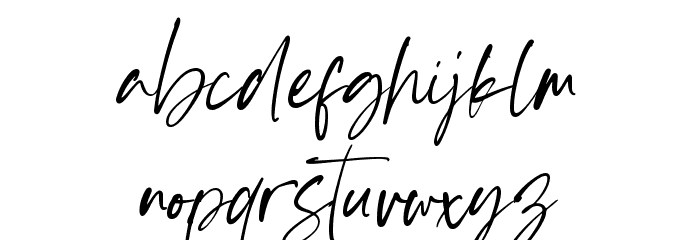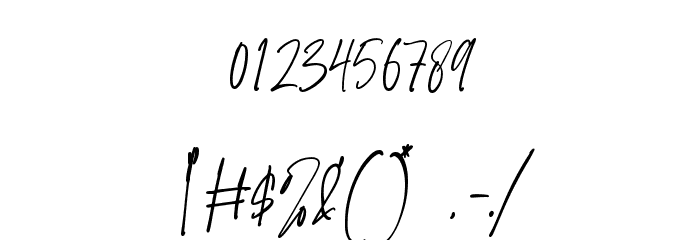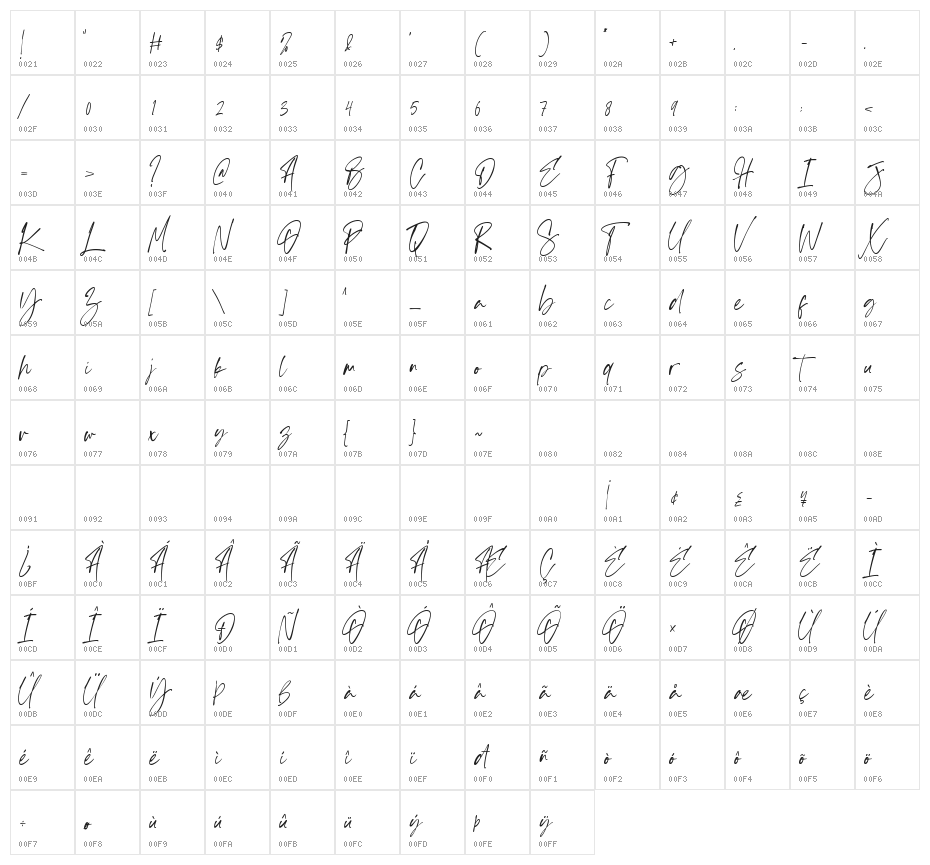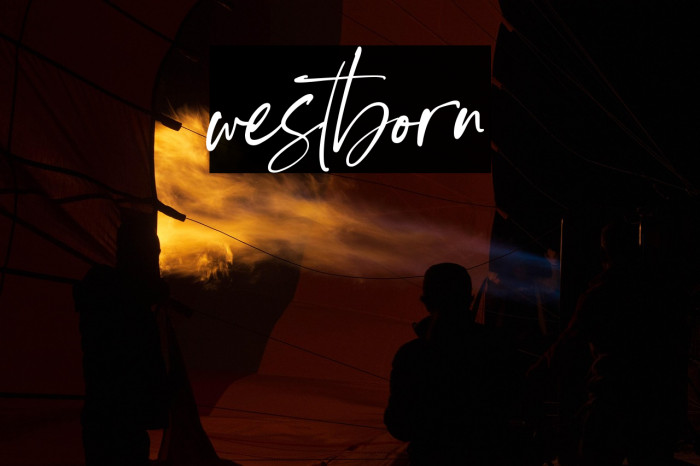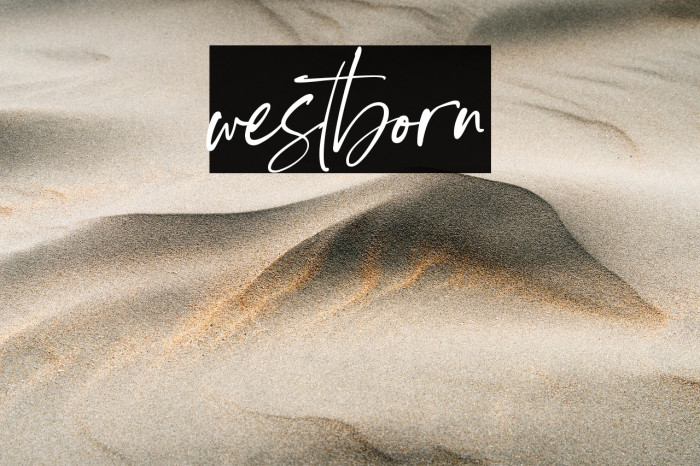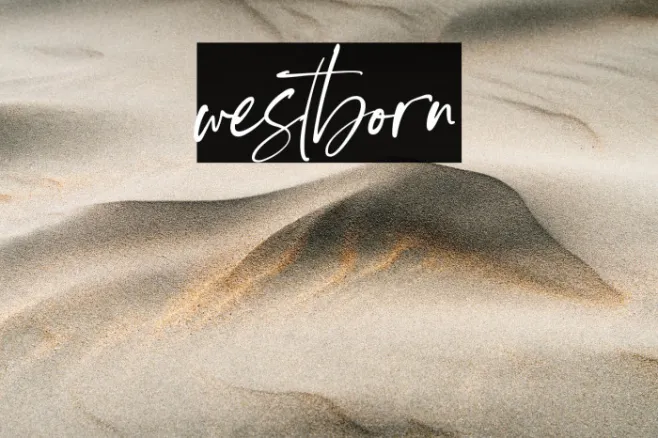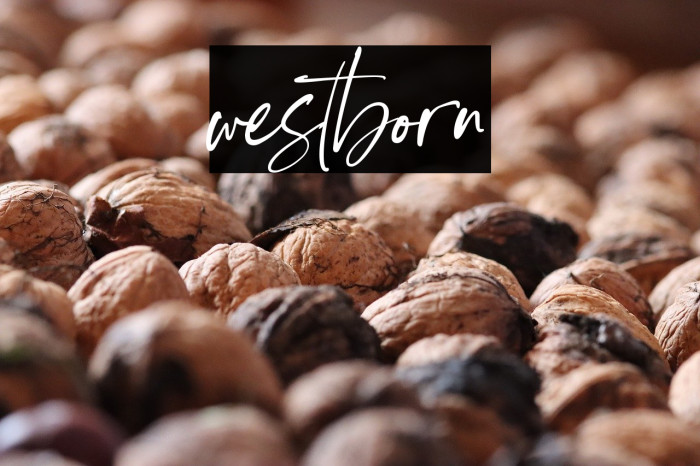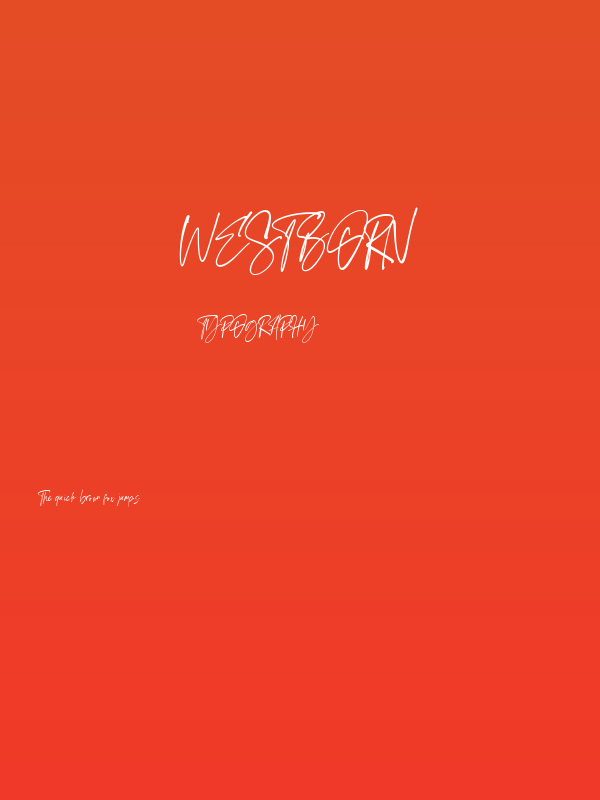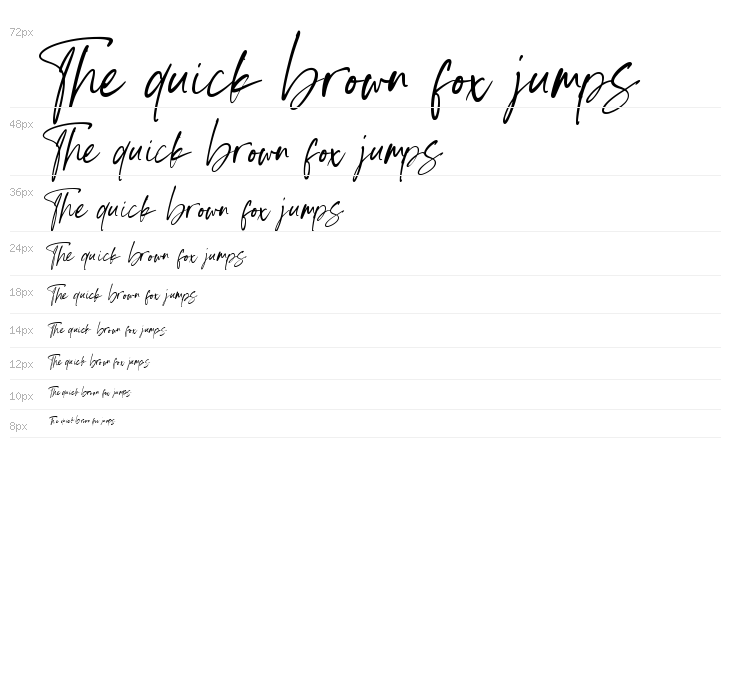
westborn Font
This font features a dynamic and expressive handwritten style, characterized by its fluid and organic strokes. The letters exhibit a casual yet sophisticated flair, with varying line thickness that adds a sense of movement and energy. The uppercase letters are bold and prominent, while the lowercase letters maintain a consistent flow, enhancing readability. Numbers and special characters are crafted with the same attention to detail, ensuring a cohesive look across all text. The overall design is modern and artistic, making it suitable for creative projects that require a personal touch.
A dynamic handwritten font with fluid strokes and modern flair.
- Proposed Projects: Ideal for branding, invitations, greeting cards, and social media graphics.
- Use Case: Logos, Headlines, Creative projects